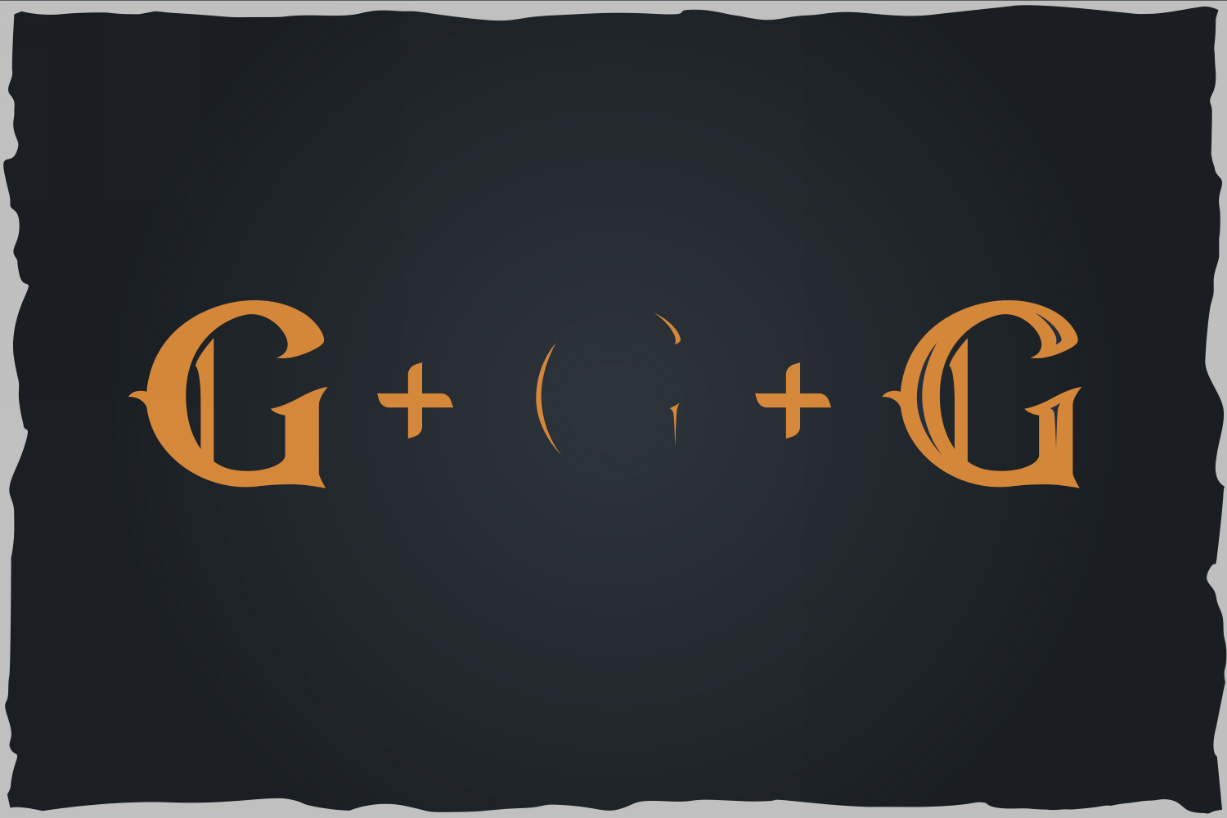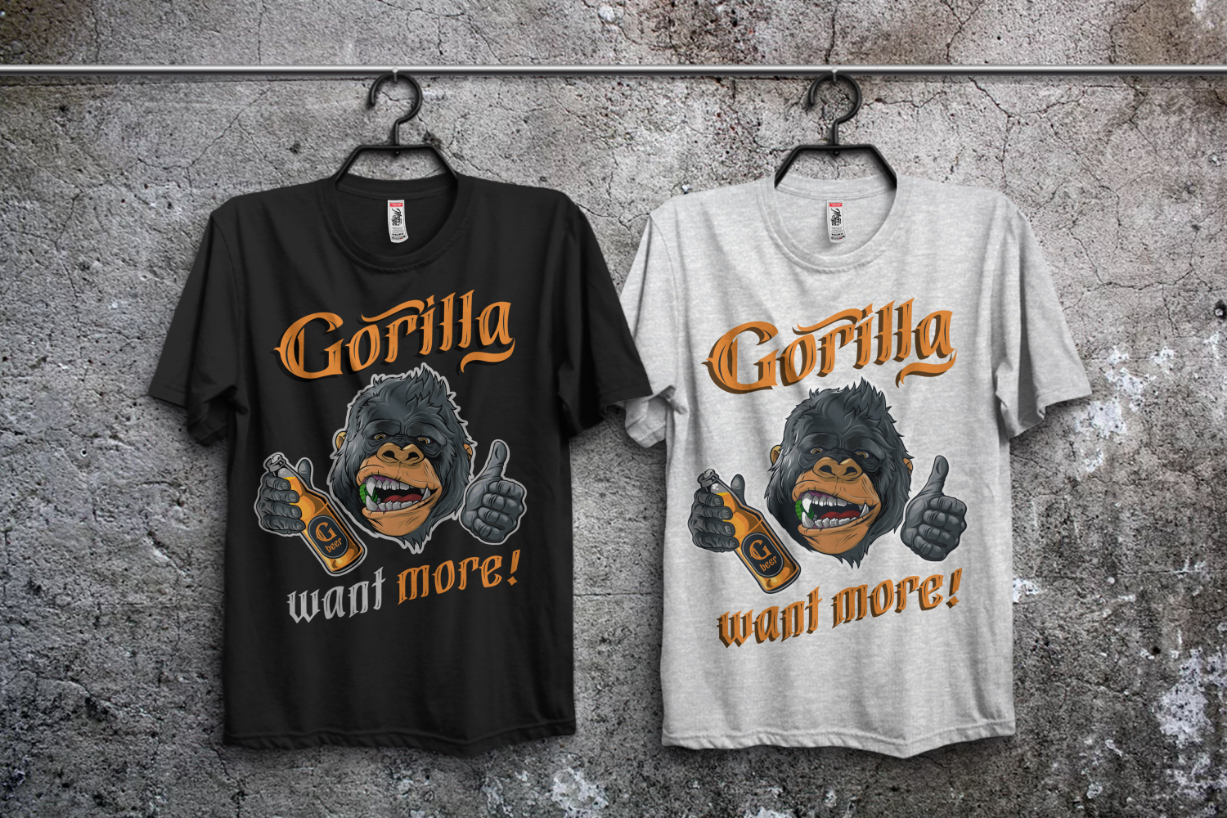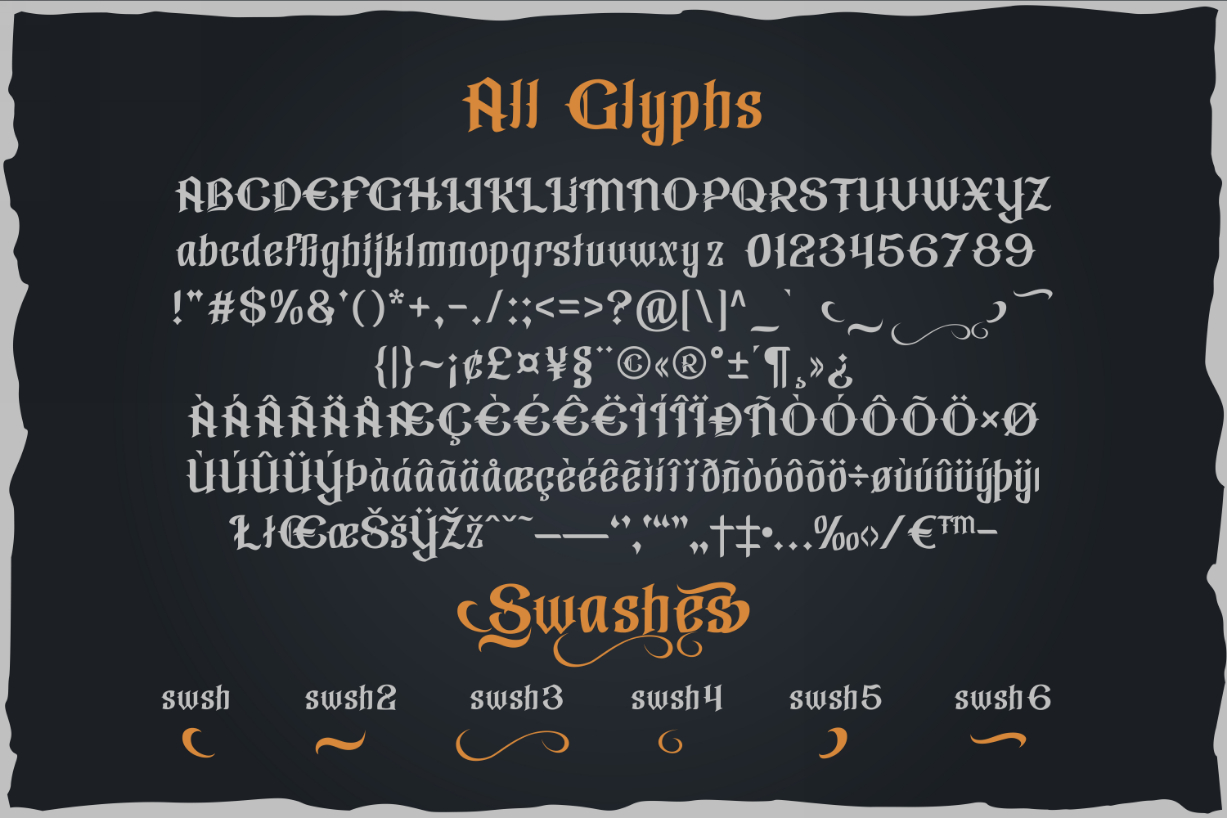
Gorilla Beer Font
About Gorilla Beer Font
Gorilla Beer is a distinct and authentic blackletter font. Expertly designed to make your creation look out of this world, this font has the potential to take your creative ideas far further.